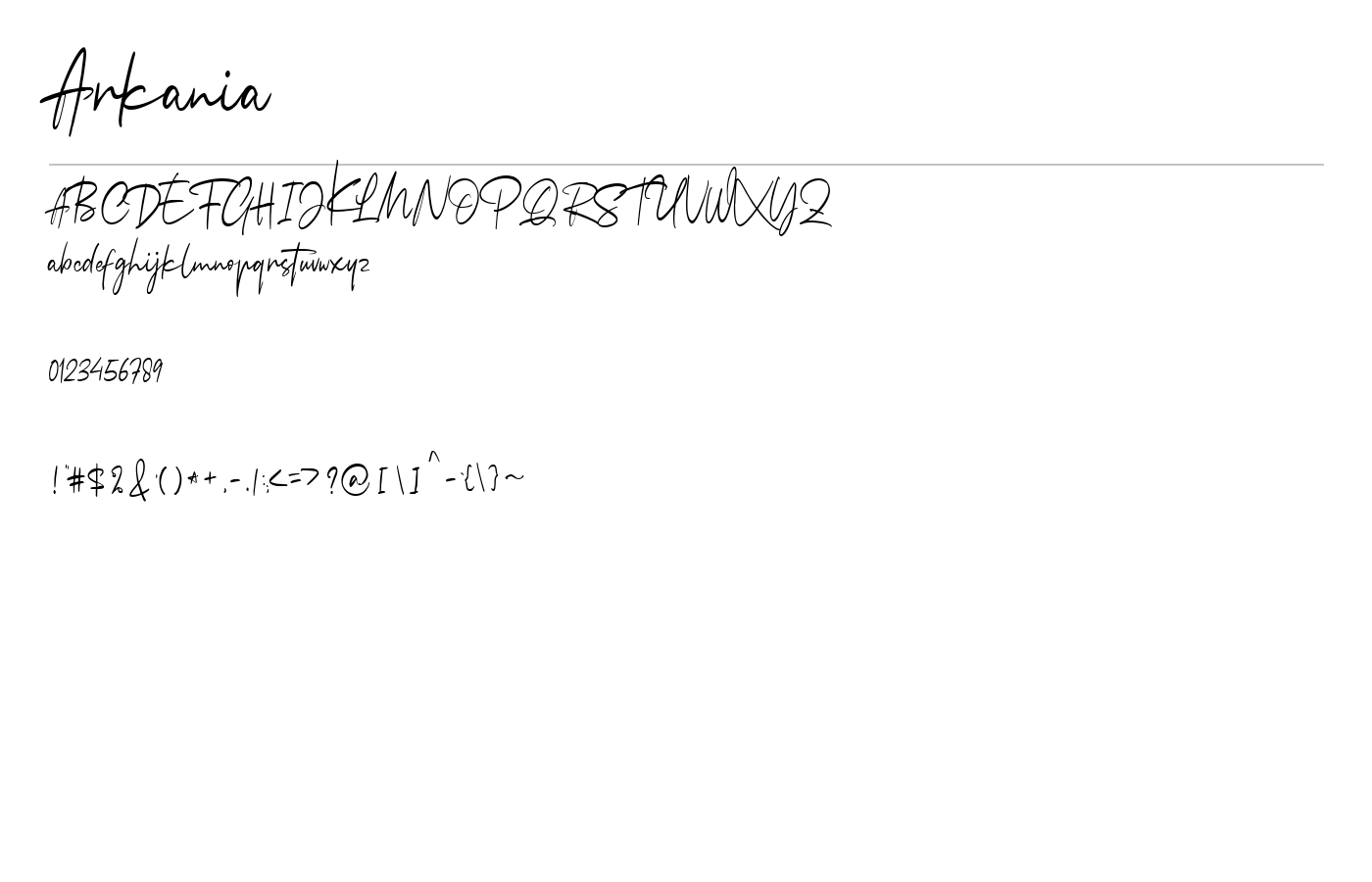
Arkania is a delicate, handwritten script font with a casual and artistic feel, featuring tall, narrow letterforms and fluid strokes that mimic natural penmanship. Its lightweight lines and irregular shapes give it a personal, creative touch, making it ideal for invitations, branding, and projects seeking a stylish yet approachable look. This font works beautifully in designs that aim to convey warmth, elegance, and individuality.
Arkania Font
About Arkania Font
| Font family | Arkania Font |
| Designer | Andrie Nugrie |